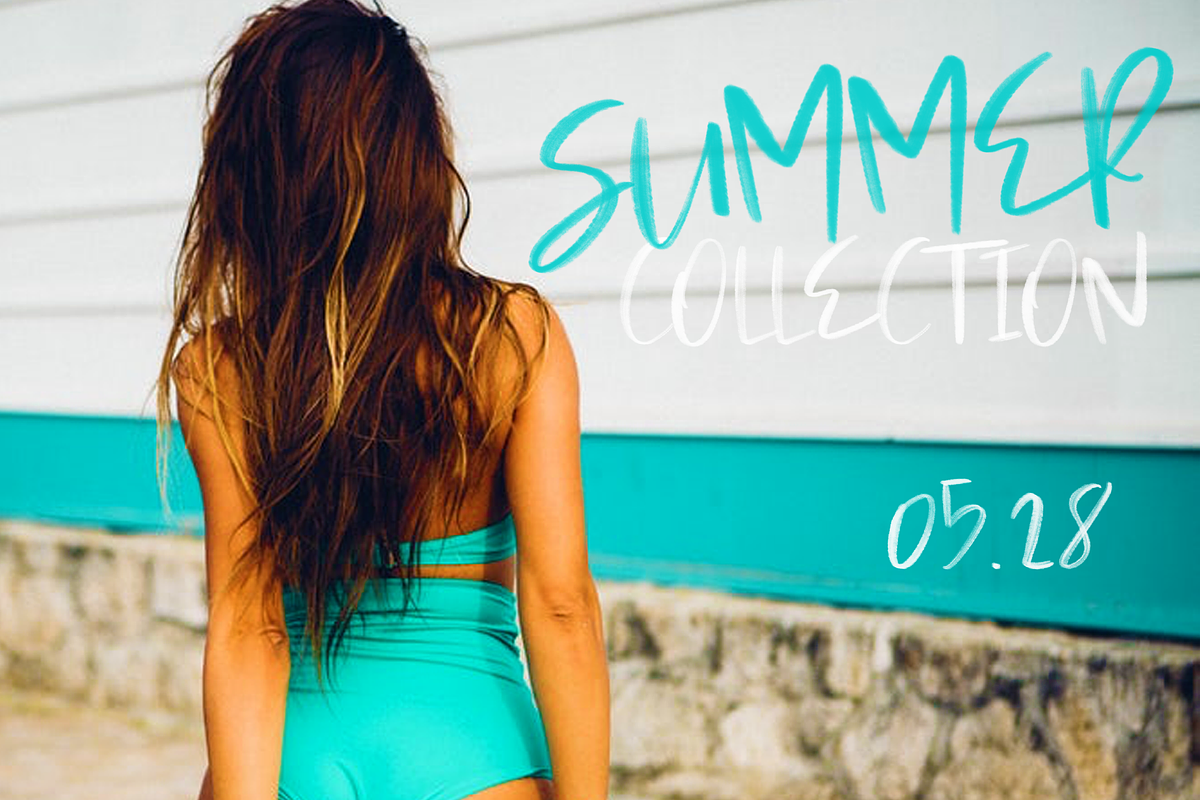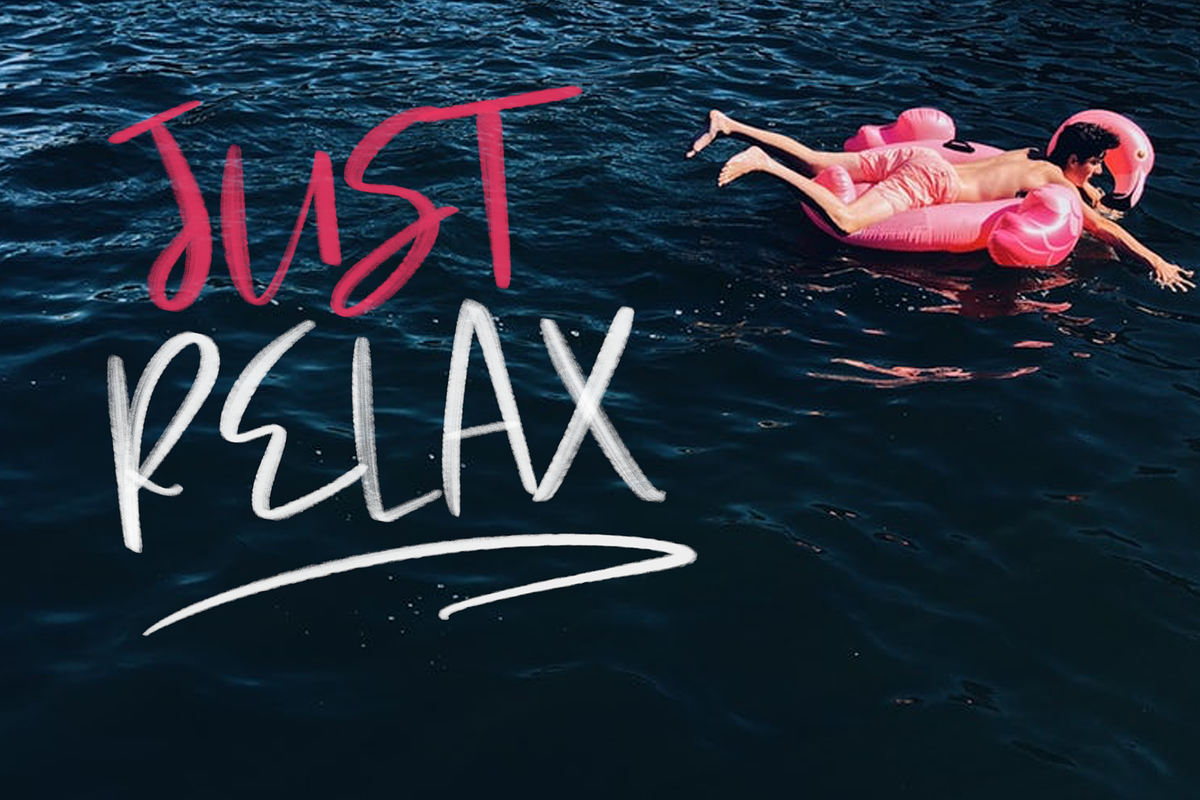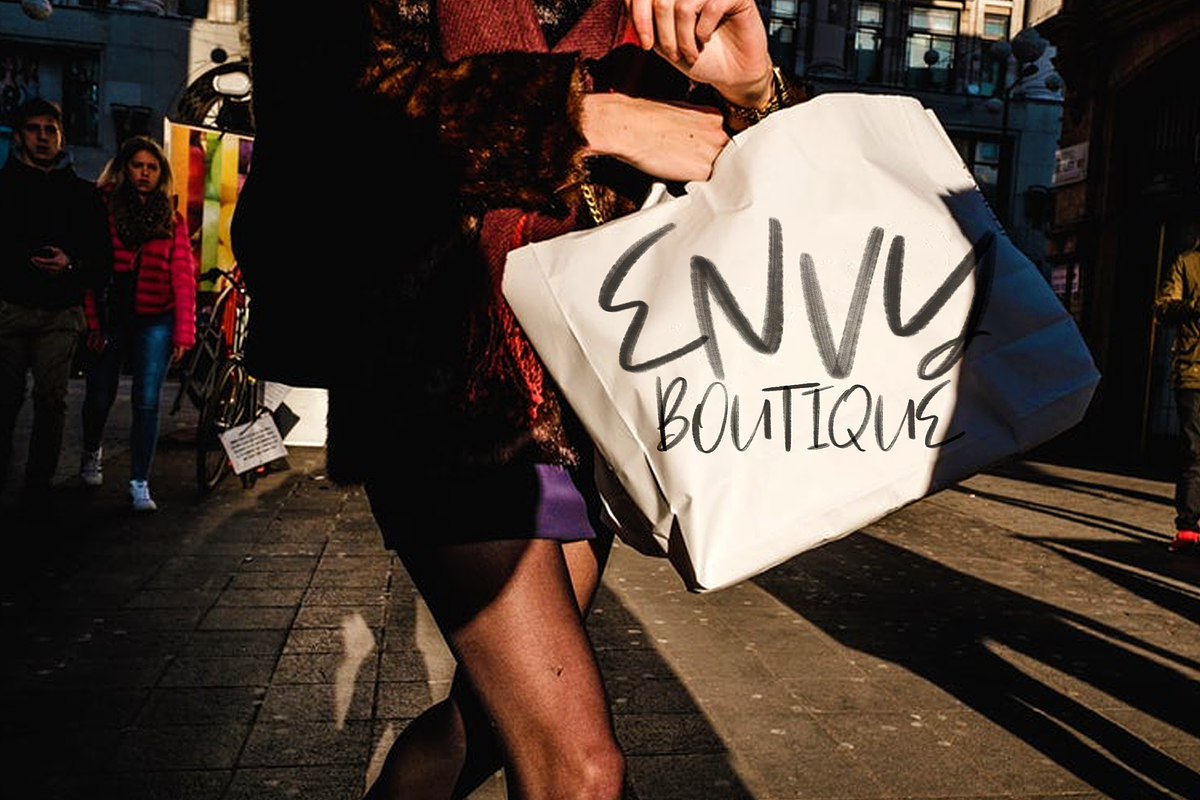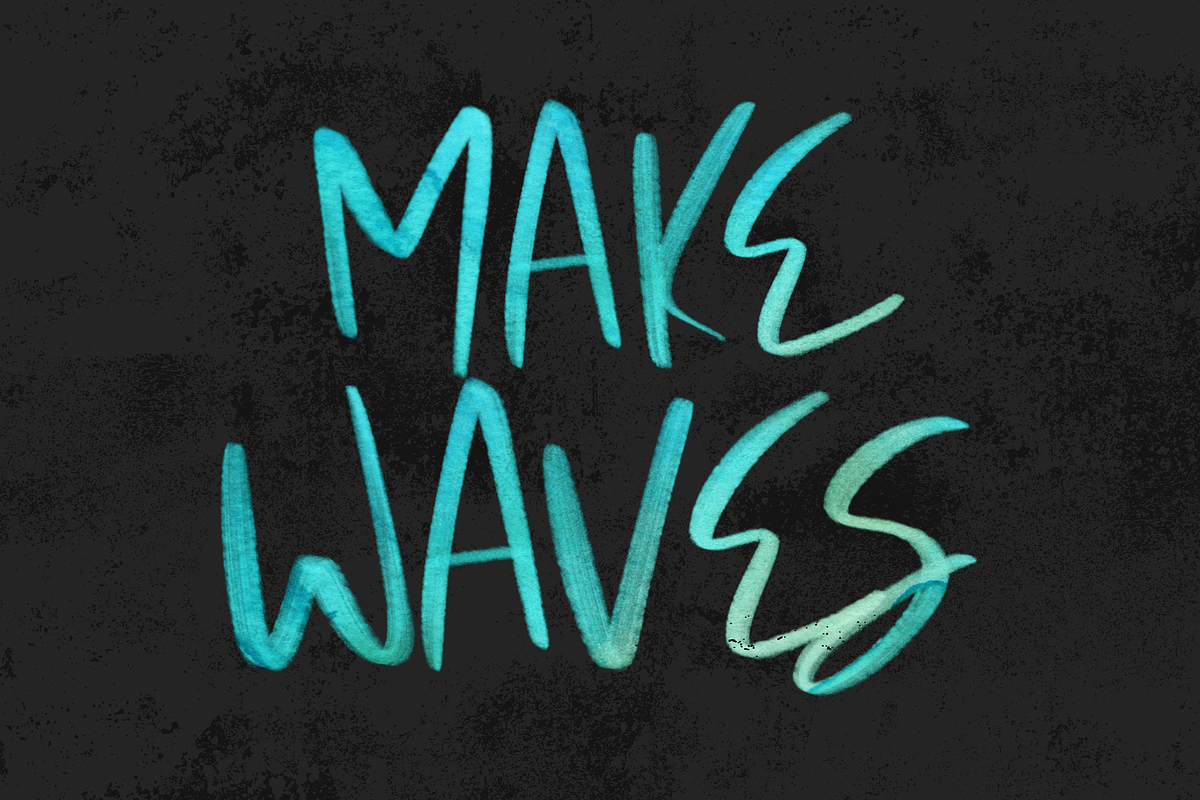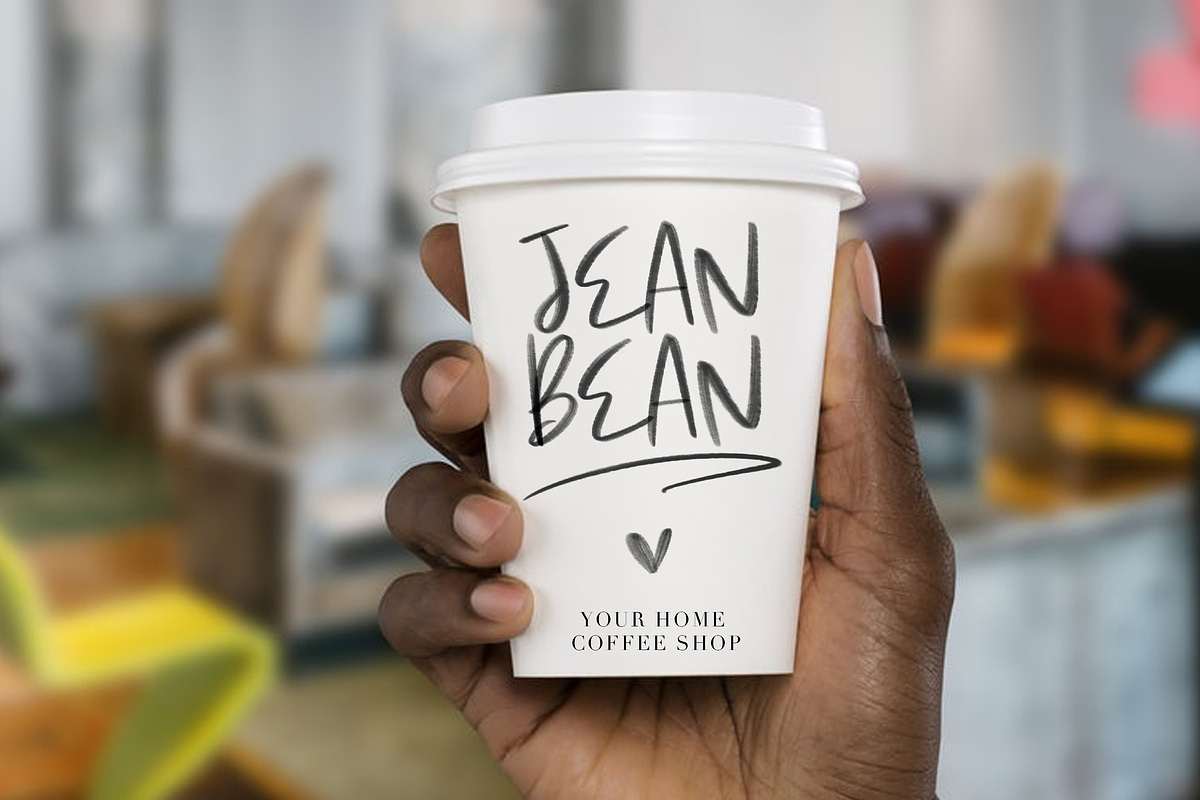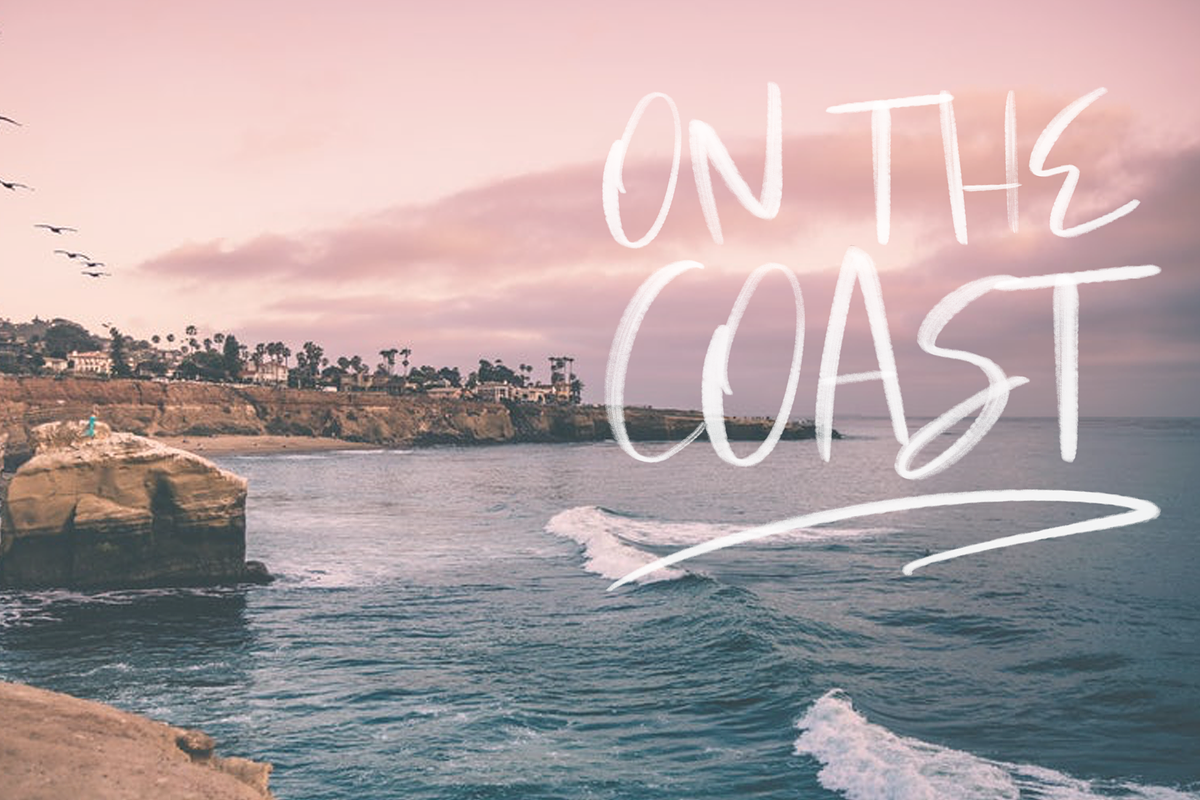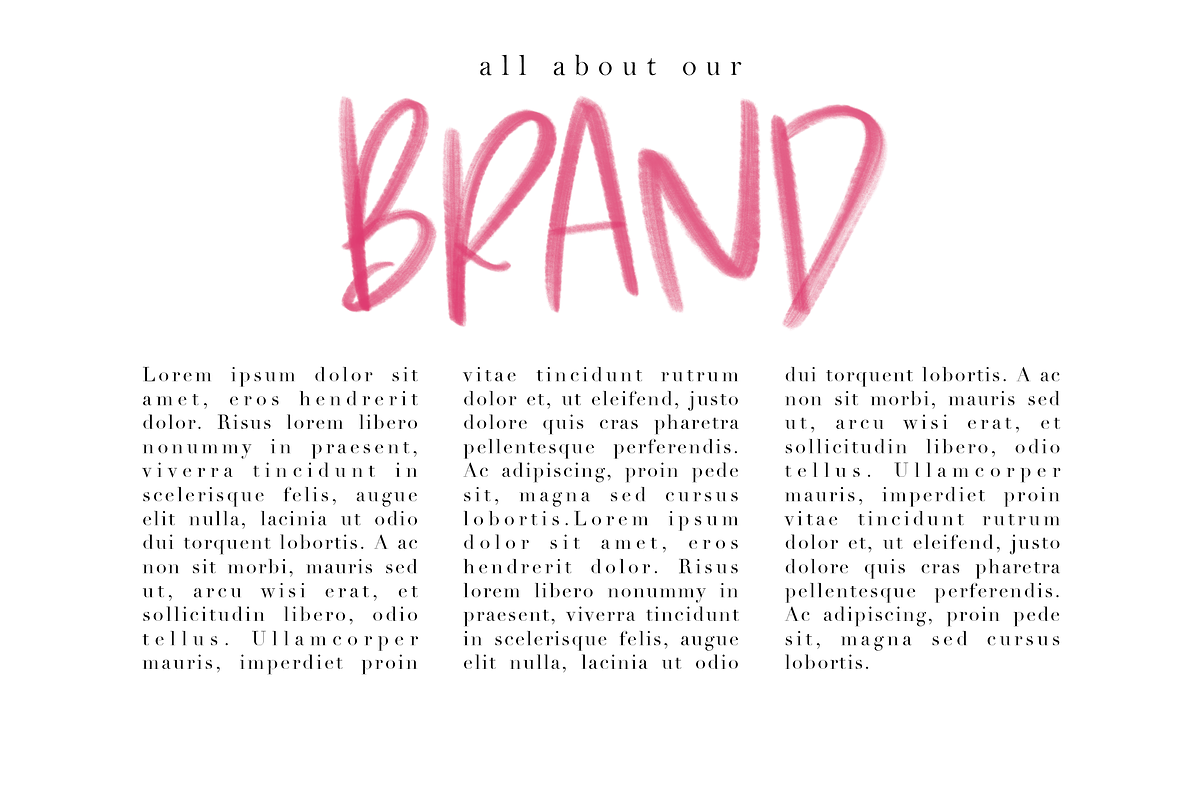
Mink Beach Font + SVG
Mink Beach is a handwritten all caps font.
Mink Beach is perfect for quotes, headings, blogs, logos, brandings, invitations and more!
This font does not include accent characters.